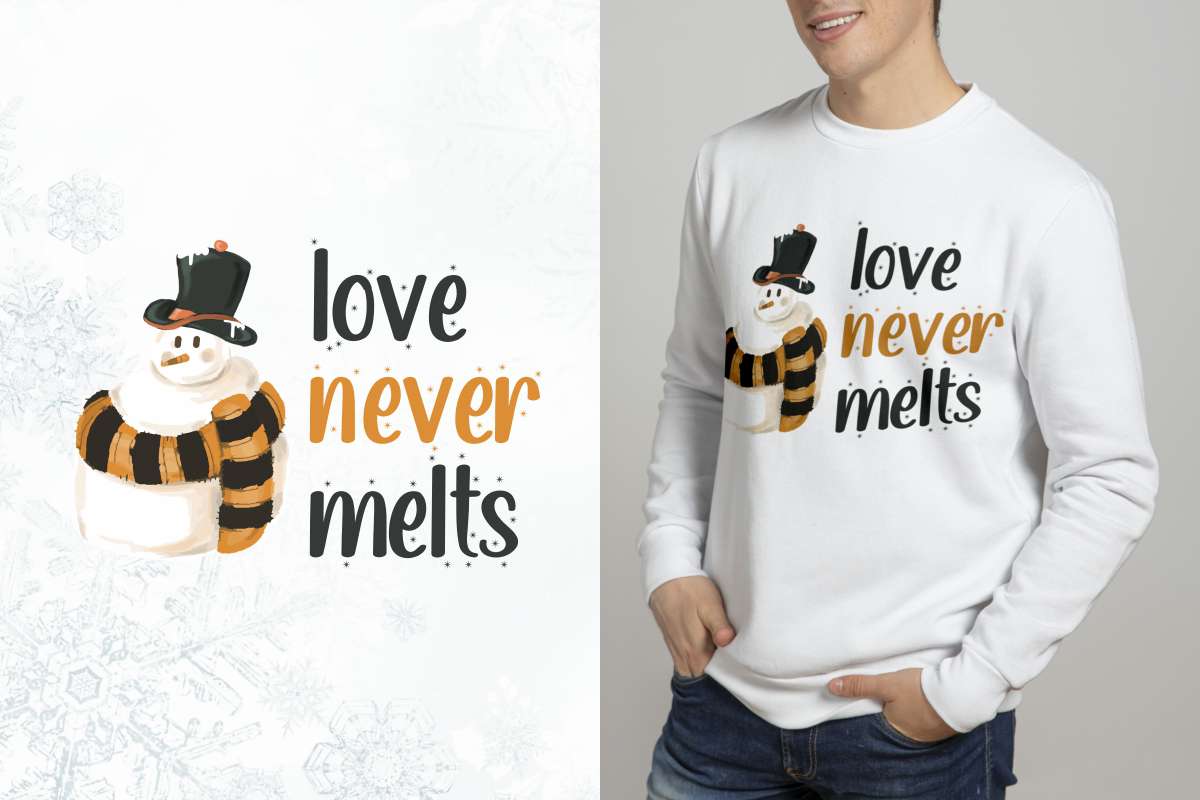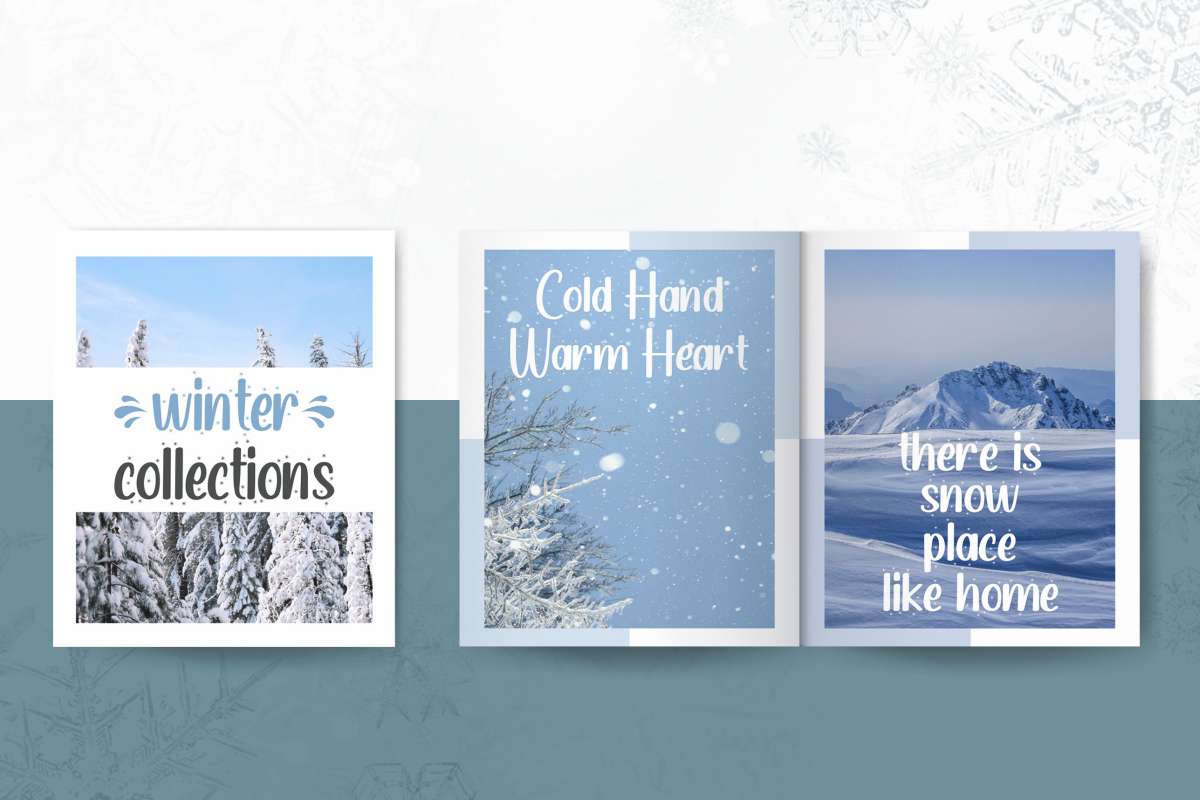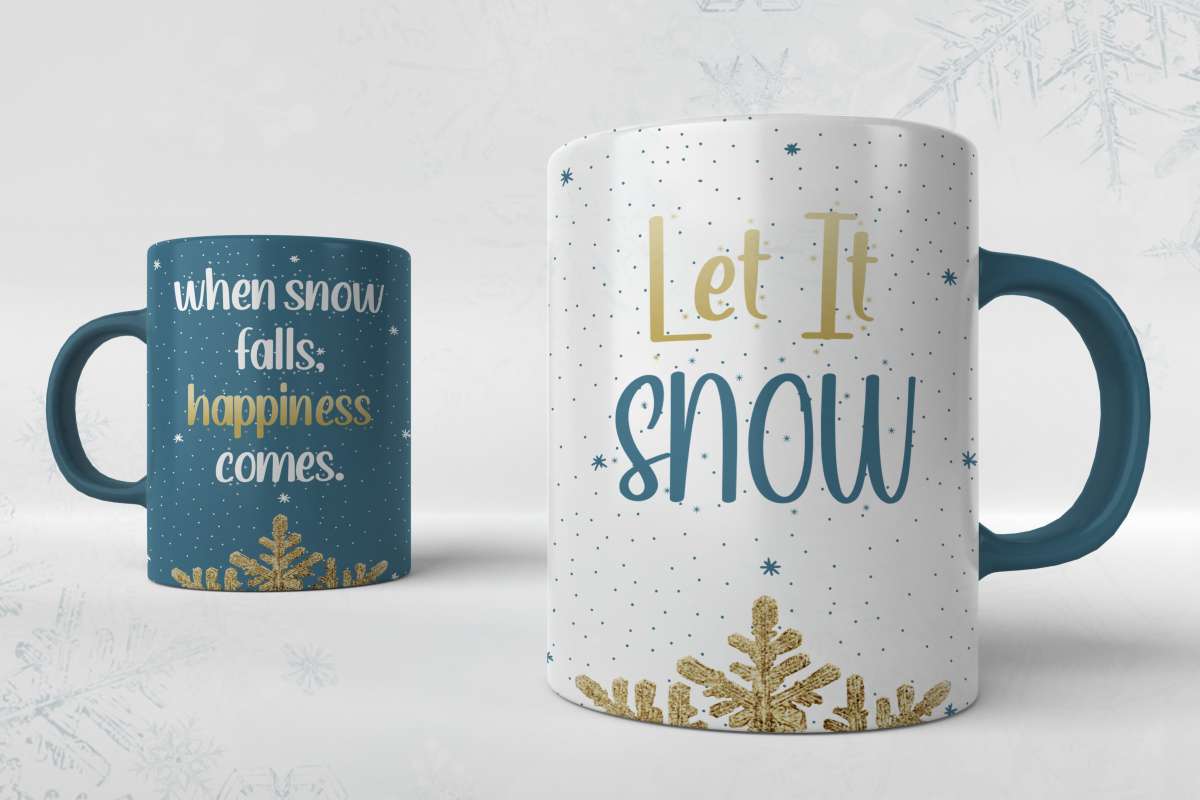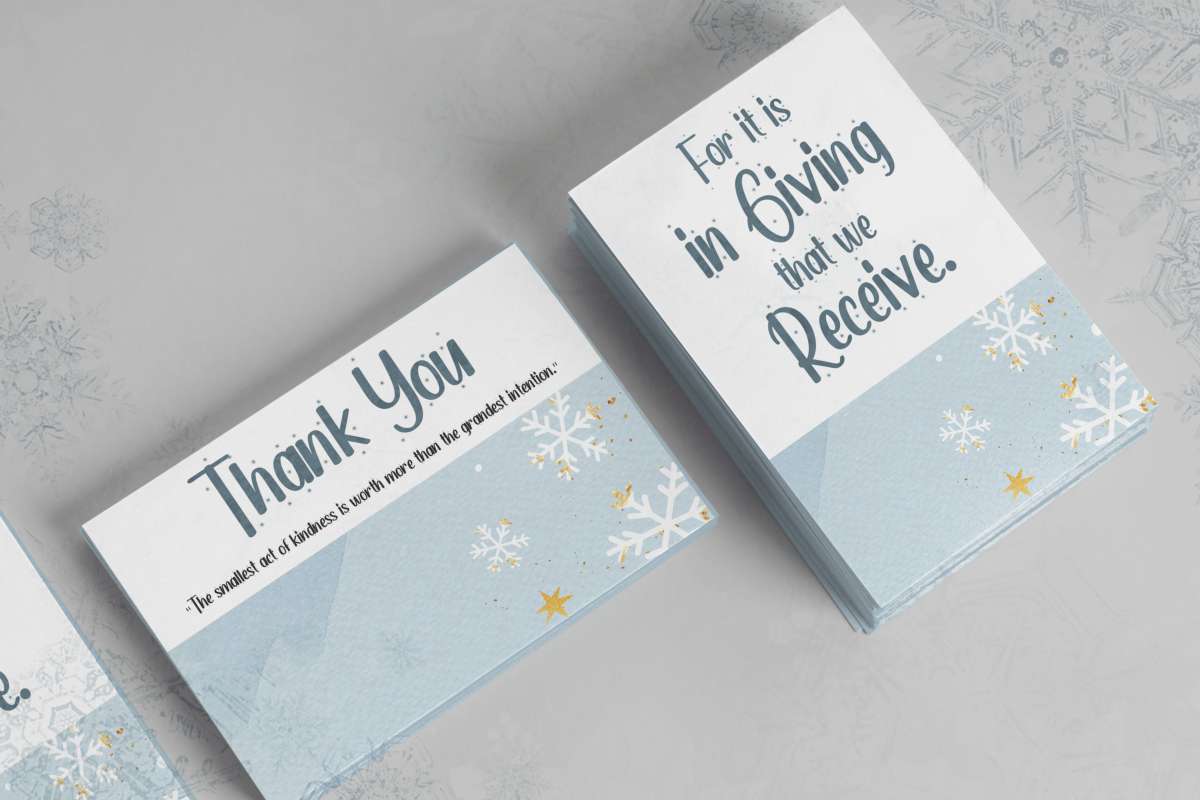
Night Snow Font
Night Snow Script Font
This is a handwriting font with snow effect style. Night Snow Font comes with sparkling exclusive font looks. This font is crafted carefully in every its single line, created to look as close to a handwritten result so that it can create the perfect combination on each glyph. When we make this font, we really want to create a font that has winter and snow style. This awesome handwritten is for anyone who are needing of elegant and fun designs.
Night Snow Font includes a full set of Upper and Lowercase Basic Characters, Numbers and Punctuation to create the perfect natural handwritten look to perfect your extraordinary projects. This font has a unique letterform and swoosh, themed in snow